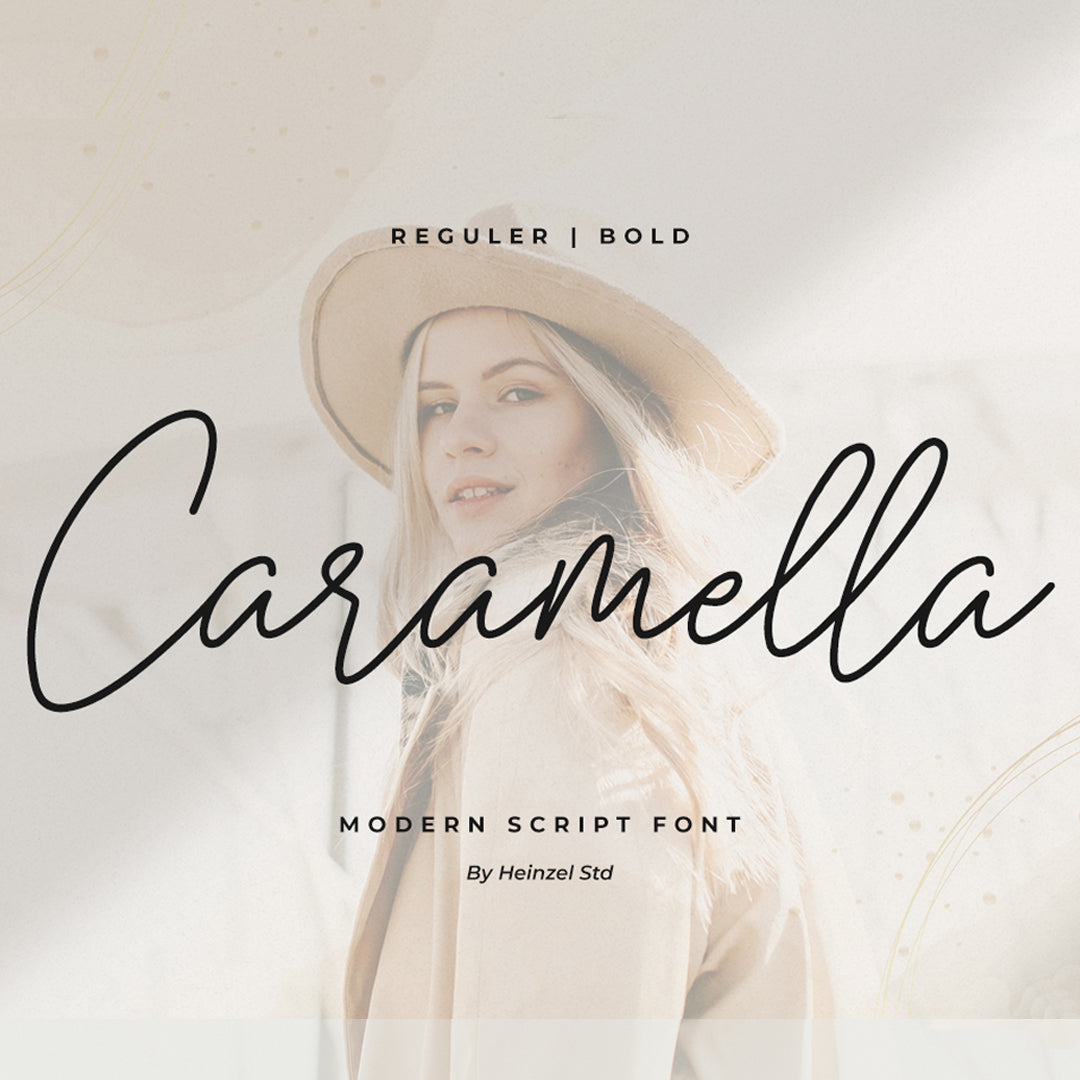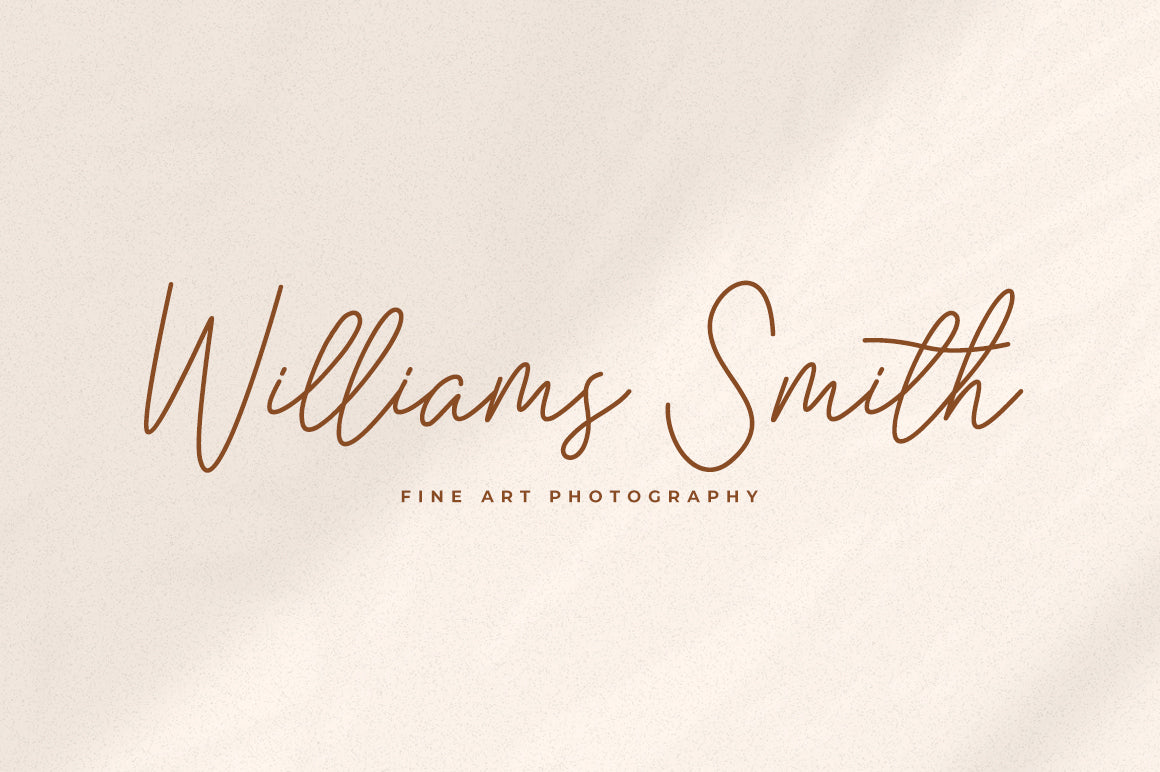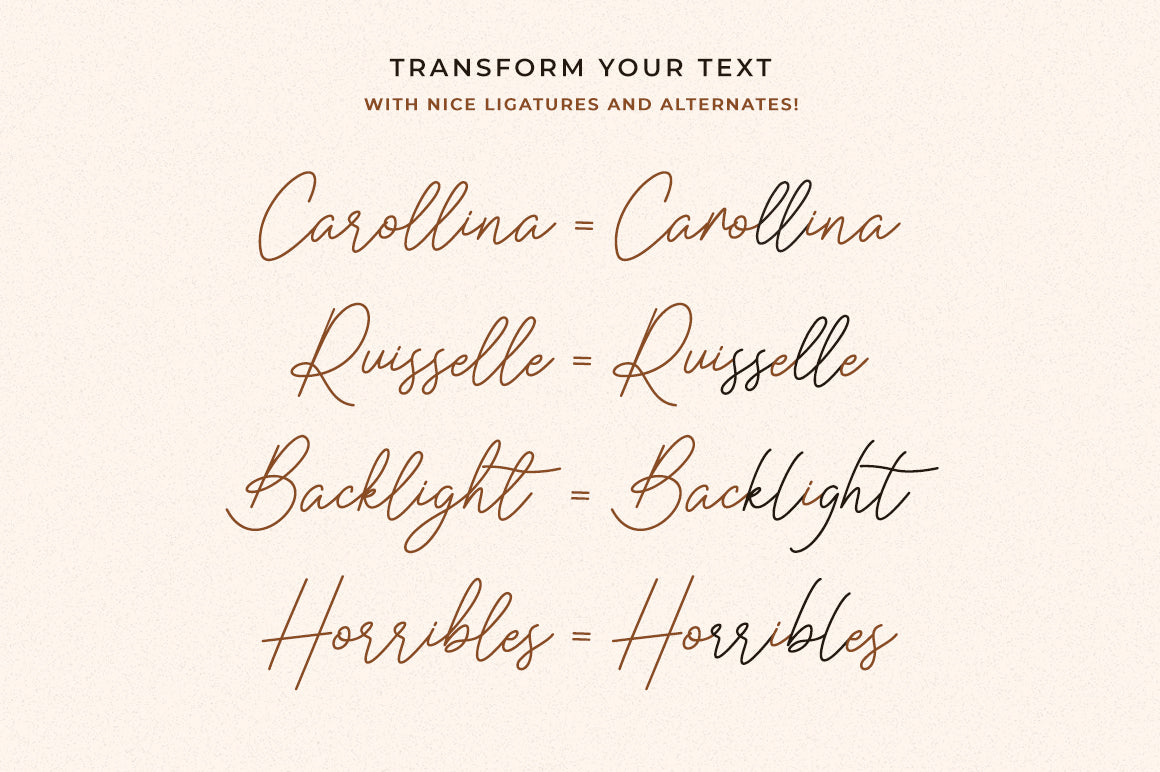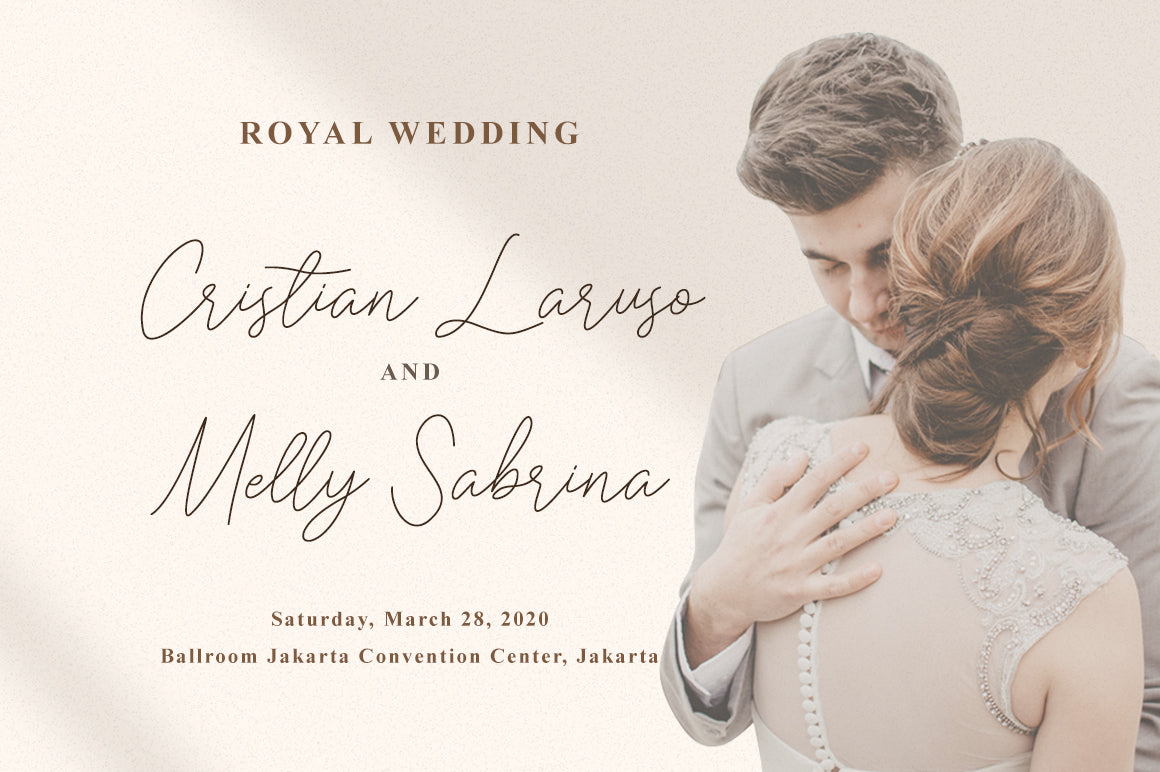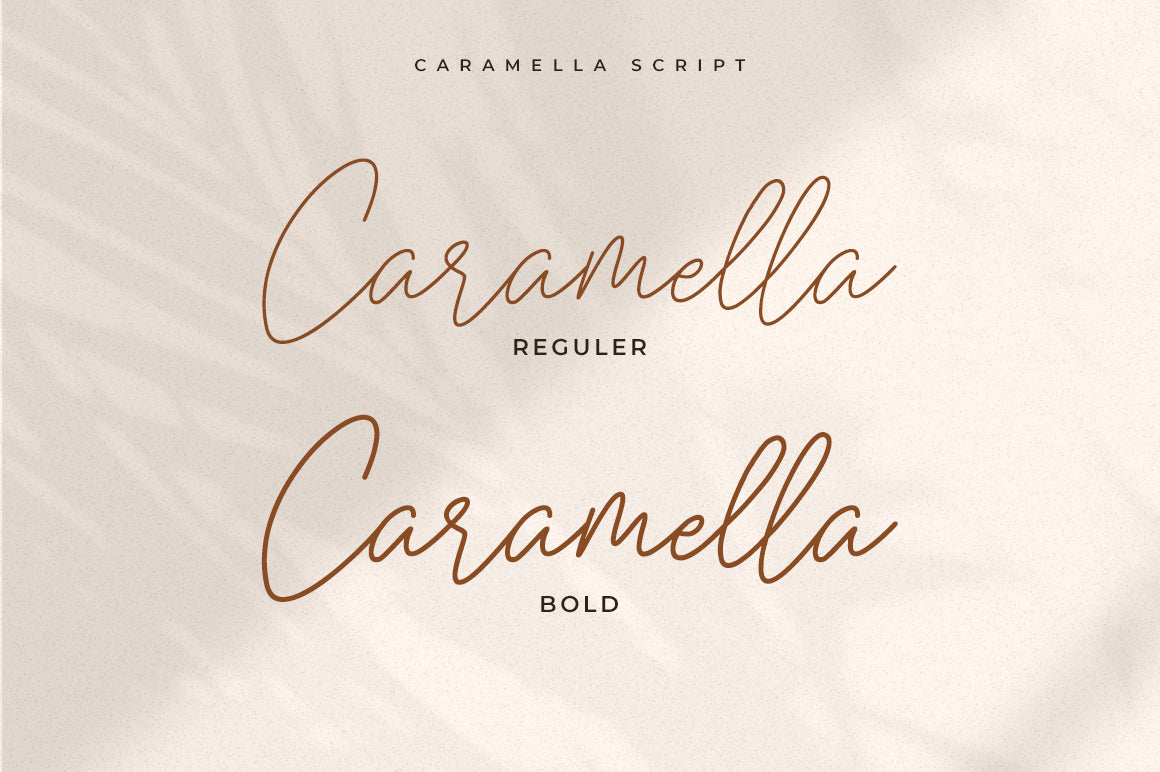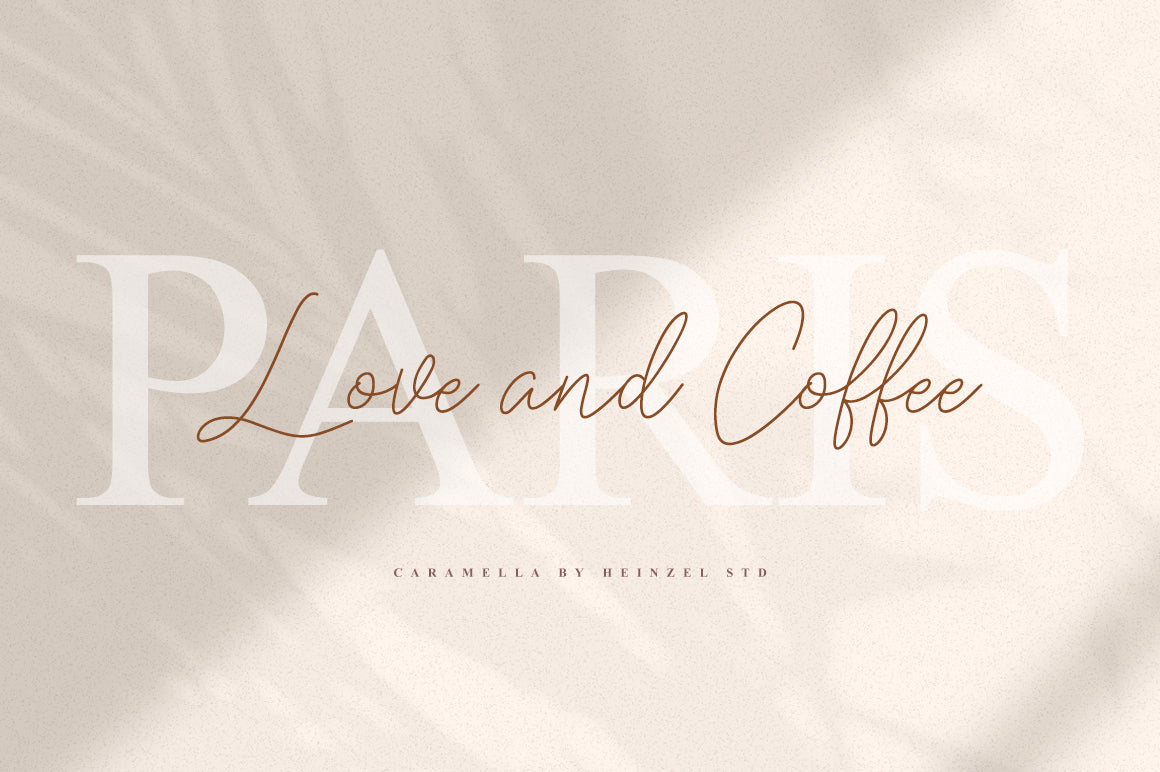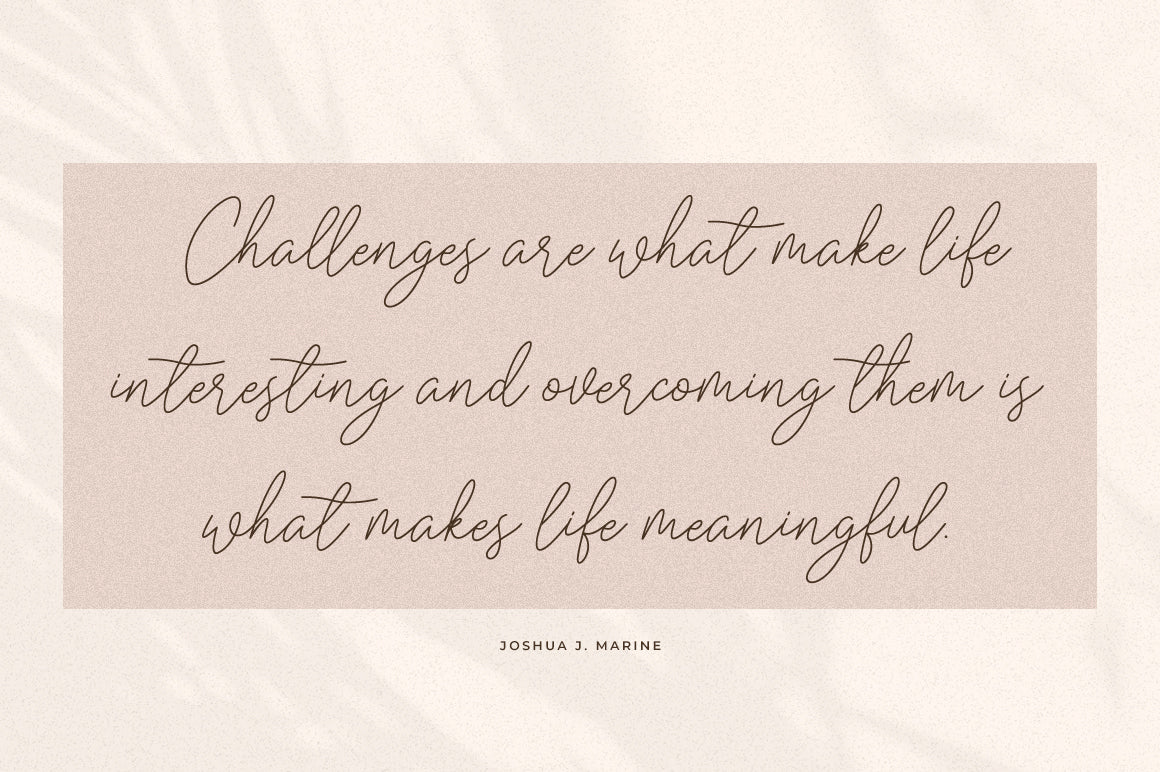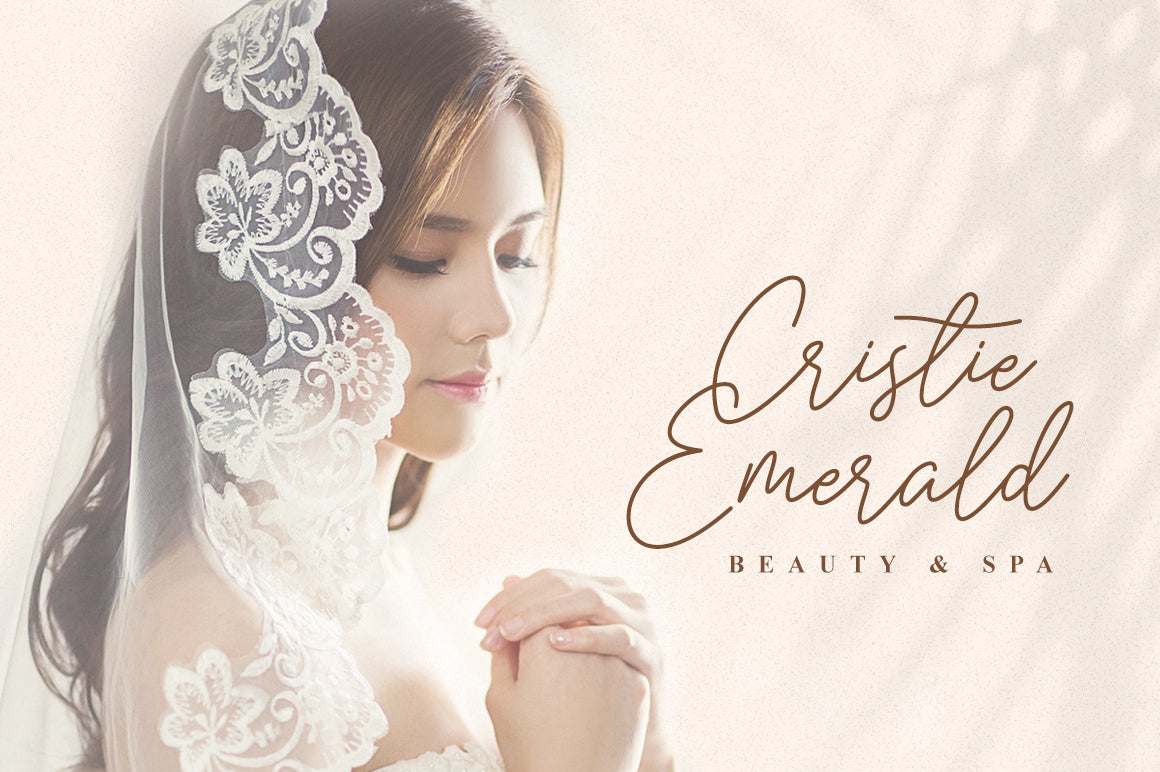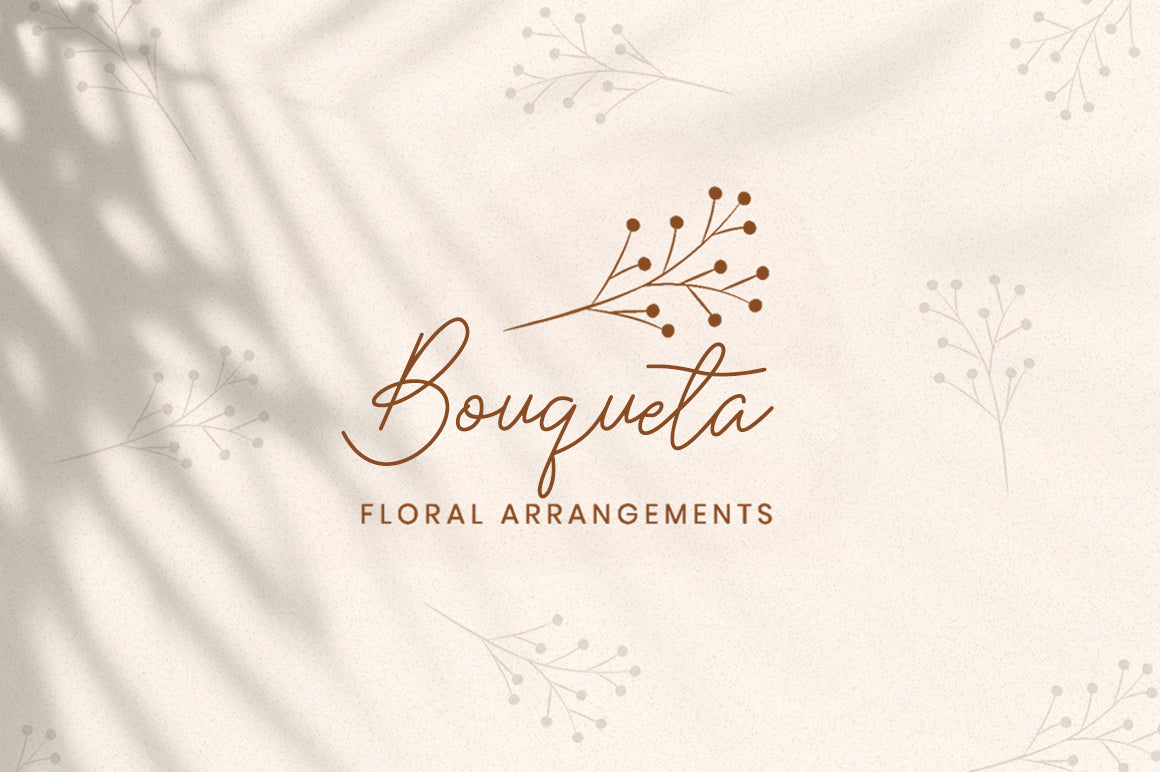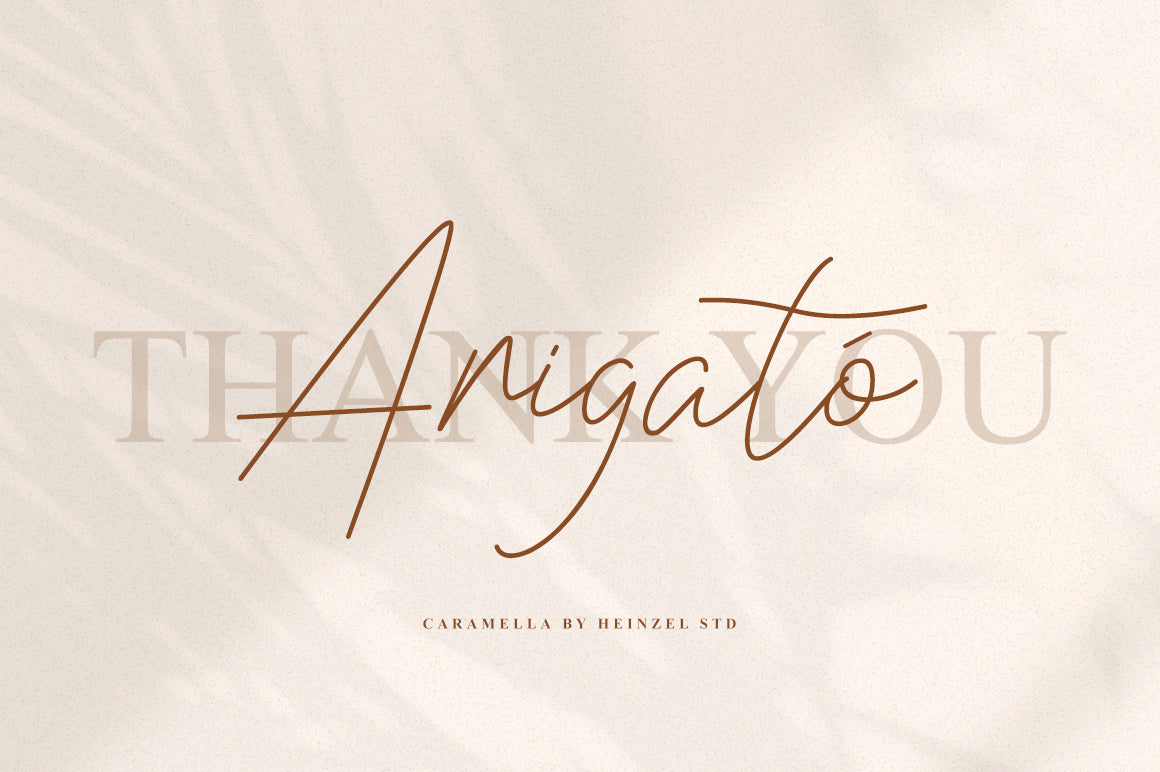
Caramella Modern Signature Script Font
Caramella Font – Modern Script Typeface
Caramella is a modern script font that blends elegant handwritten strokes with a smooth contemporary style. Designed with flowing curves and natural signature-inspired lettering, this font delivers a luxurious and feminine appearance perfect for branding, wedding invitations, logo design, social media graphics, packaging, fashion editorials, and premium stationery.
With its clean curves and stylish character connections, Caramella creates a sophisticated visual identity while remaining highly readable. The font comes in Regular and Bold styles, making it versatile for both delicate typography and strong statement headlines. Whether you are creating modern logos, beauty branding, boutique packaging, or romantic quote designs, Caramella adds an authentic handwritten touch to every project.
Inspired by modern calligraphy and contemporary script typography, Caramella works beautifully for creative businesses, personal branding, photography watermarks, cosmetic brands, cafés, and elegant marketing materials. Its smooth baseline and stylish letterforms make every design feel graceful, warm, and professional.
Caramella is a modern script font featuring handwritten strokes and signature-style lettering. It includes Regular and Bold styles with connected letterforms and a smooth baseline.